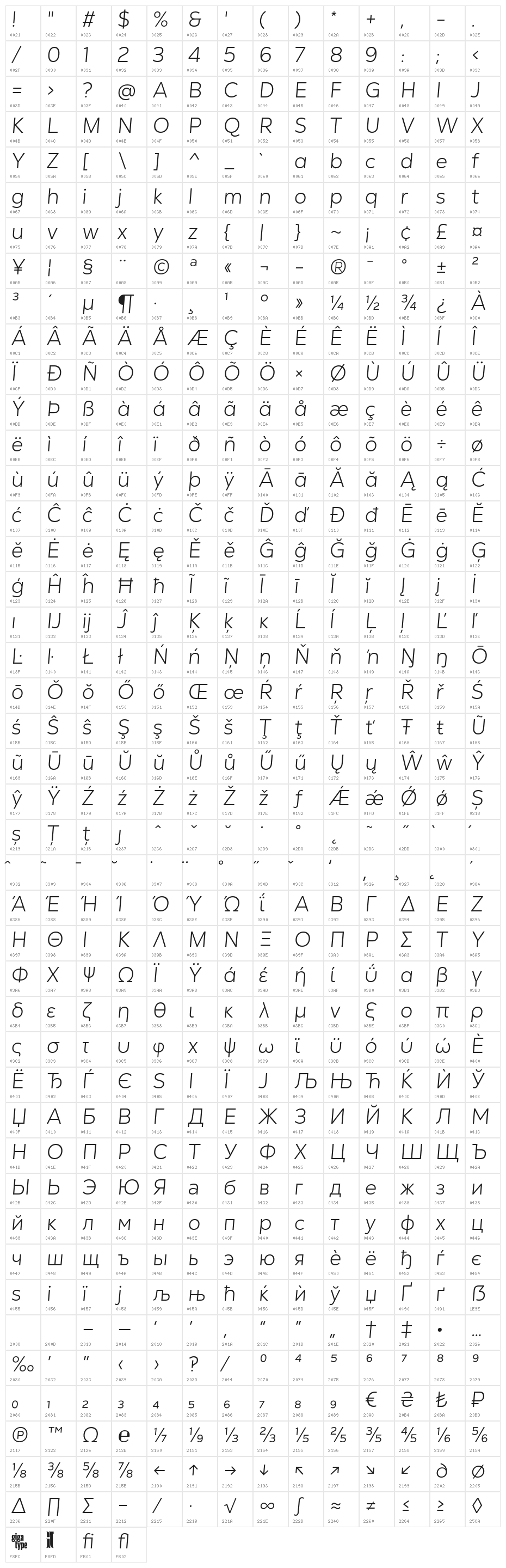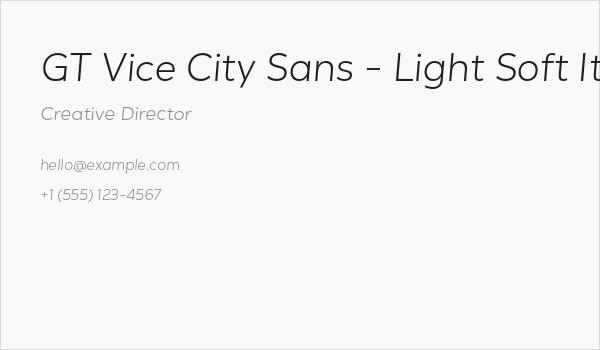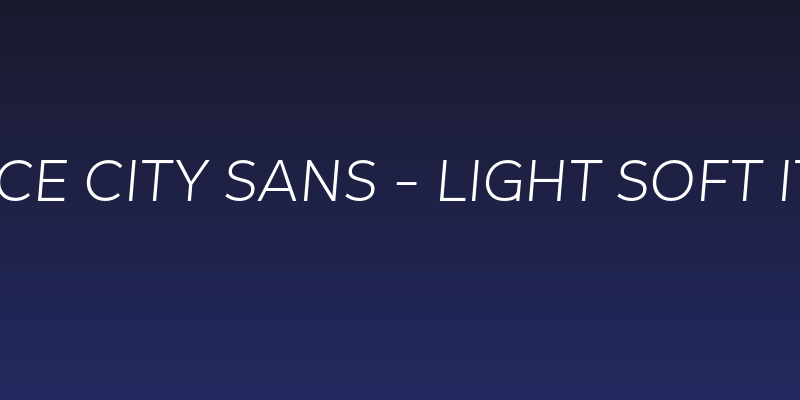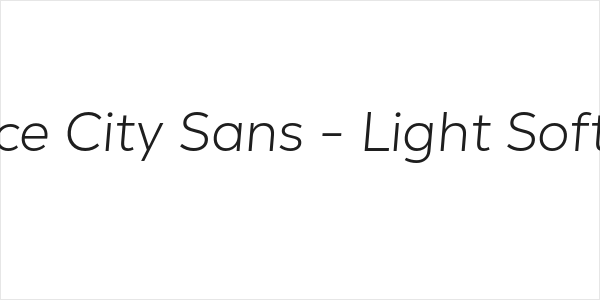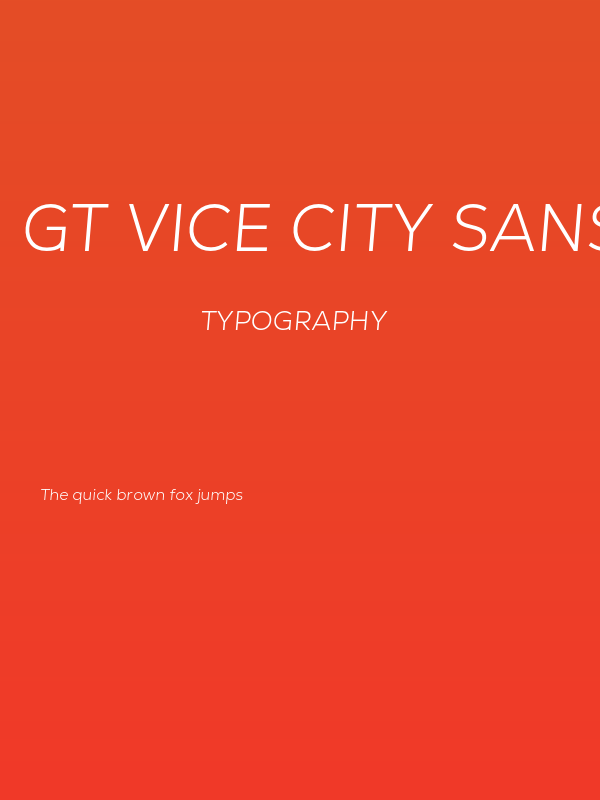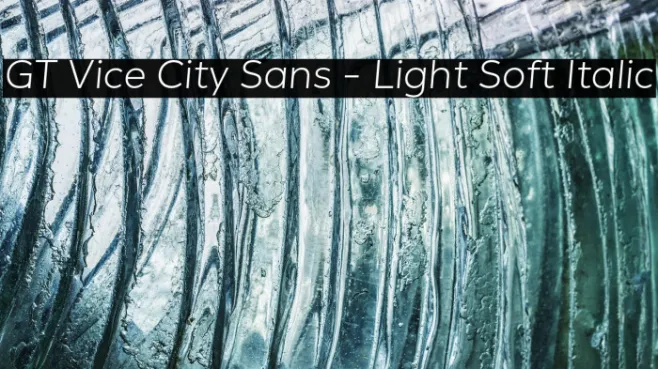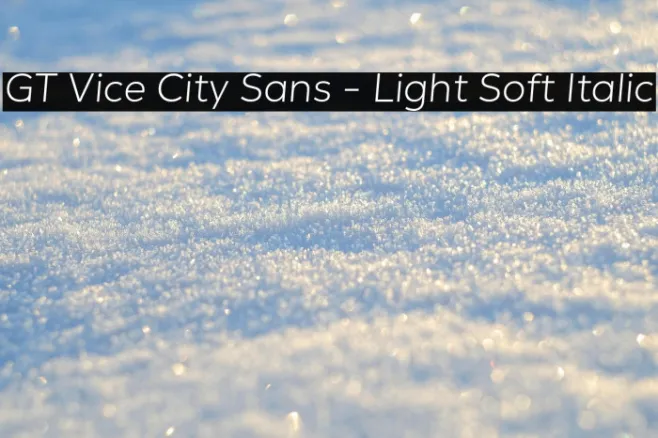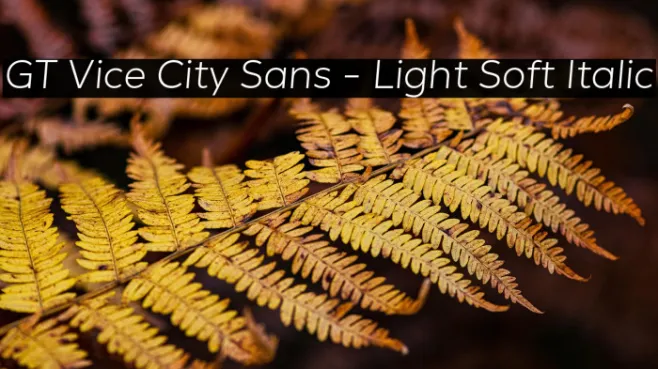
GT Vice City Sans - Light Soft Italic Font
GT Vice City Sans - Light Soft Italic Description
A sleek, modern sans-serif font with a light weight and soft italic style, featuring clean lines and a contemporary aesthetic.
| Use Case | Headlines, Body text, Logos |
| Proposed Projects | Branding, digital interfaces, modern print materials. |